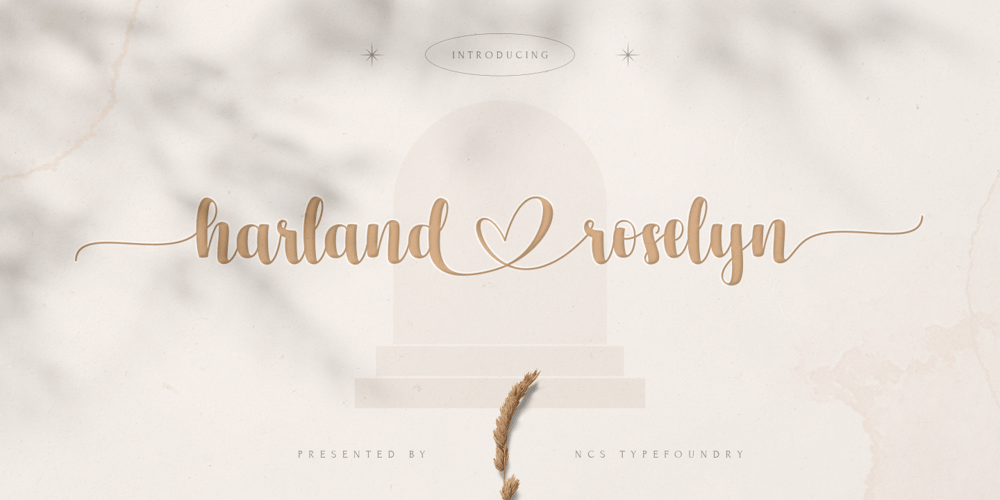
Harland Roselyn Font Family was designed by Toni Setiawan, Eep Apringga and published by Namara Creative Studio. Harland Roselyn contains 1 styles and family package options. Harland Roselyn is a romantic and sweet calligraphy typeface with characters that dance along the baseline. It will add a luxury spark to any design project that you wish to create!Bold decorative script with modern handwritten touch, warm, romantic and jolly. perfect for wedding invitations, logos, branding, packaging as well as cuttable designs.